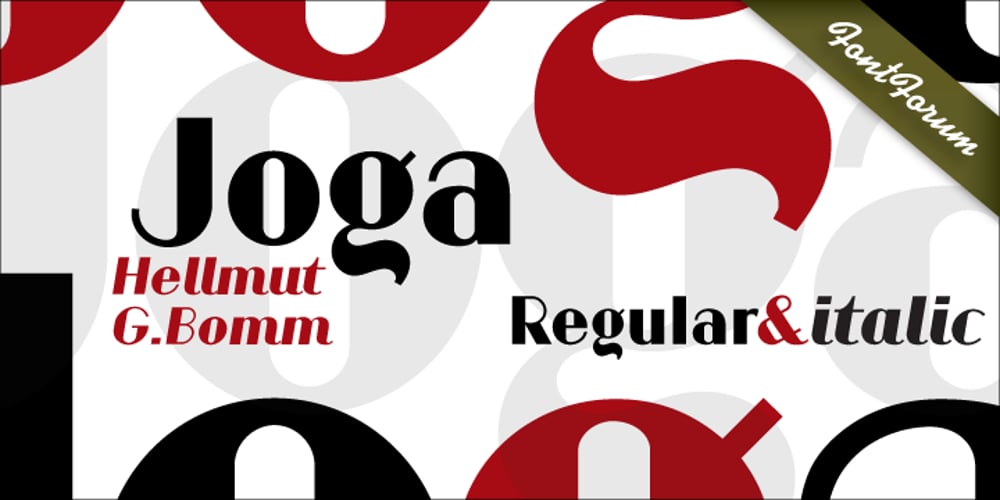
Joga Font Family was designed by Hellmut G. Bomm and published by URW Type Foundry. Joga contains 2 styles and family package options. Joga is based on signage lettering designed for the Johannes Pharmacy in Backnang, in the German state of Baden-Wuerttemberg, many years ago, probably by the architect of the building. German type designer Hellmut G. Bomm, who has contributed a number of very beautiful and unique fonts to the URW FontForum during the last decade, was asked to redesign the pharmacy’s letterhead, fax, business cards, etc., based on the original lettering. The result is quite pleasing: Joga is an expressive sans serif display font in the same vein as Broadway ? very feminine, very beautiful and of classical elegance. Joga reminds one of Art Deco and theater posters, and it is easily recognized by its strong contrast and individual letter forms. Joga is precisely constructed, i.e., it was drawn on a grid.